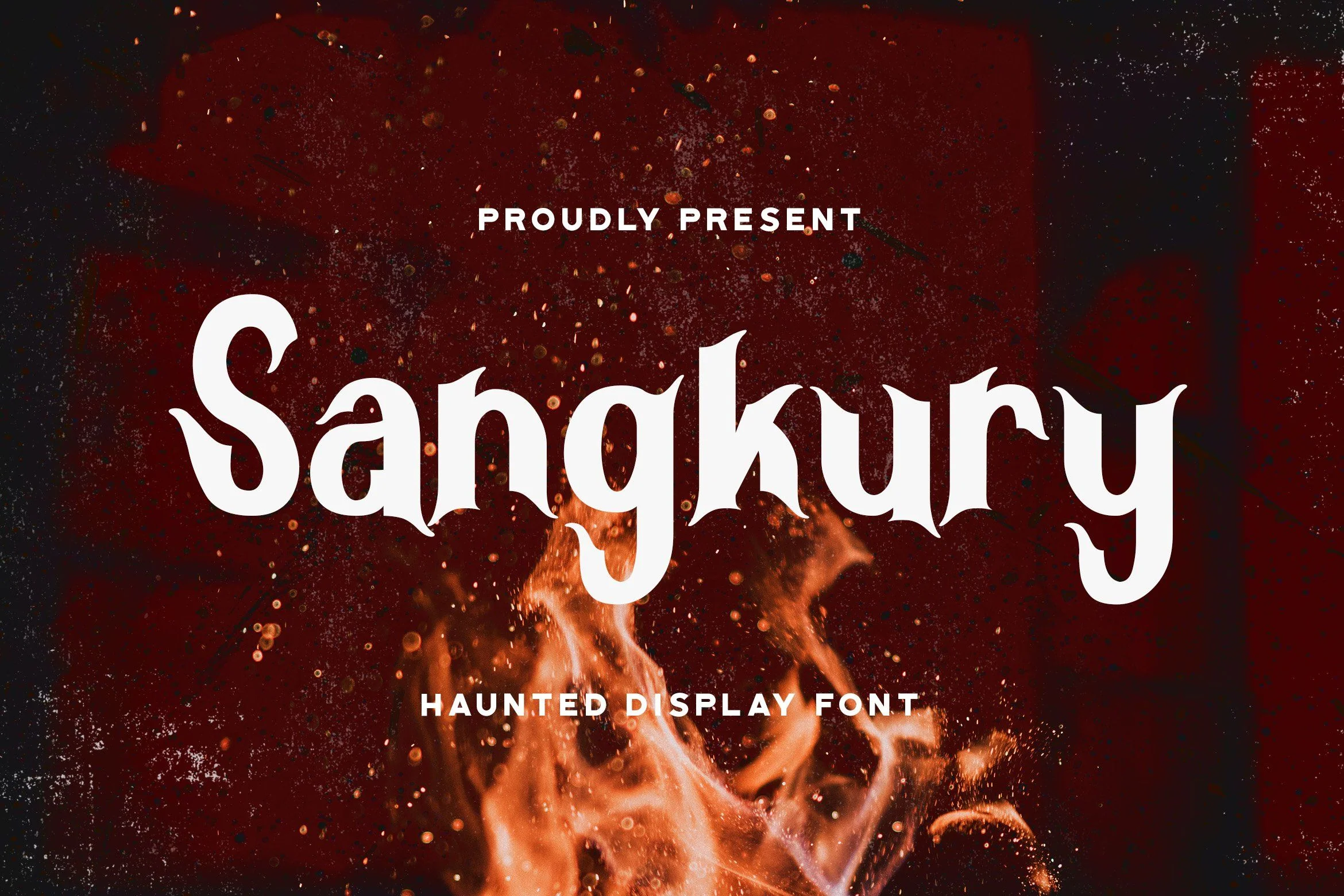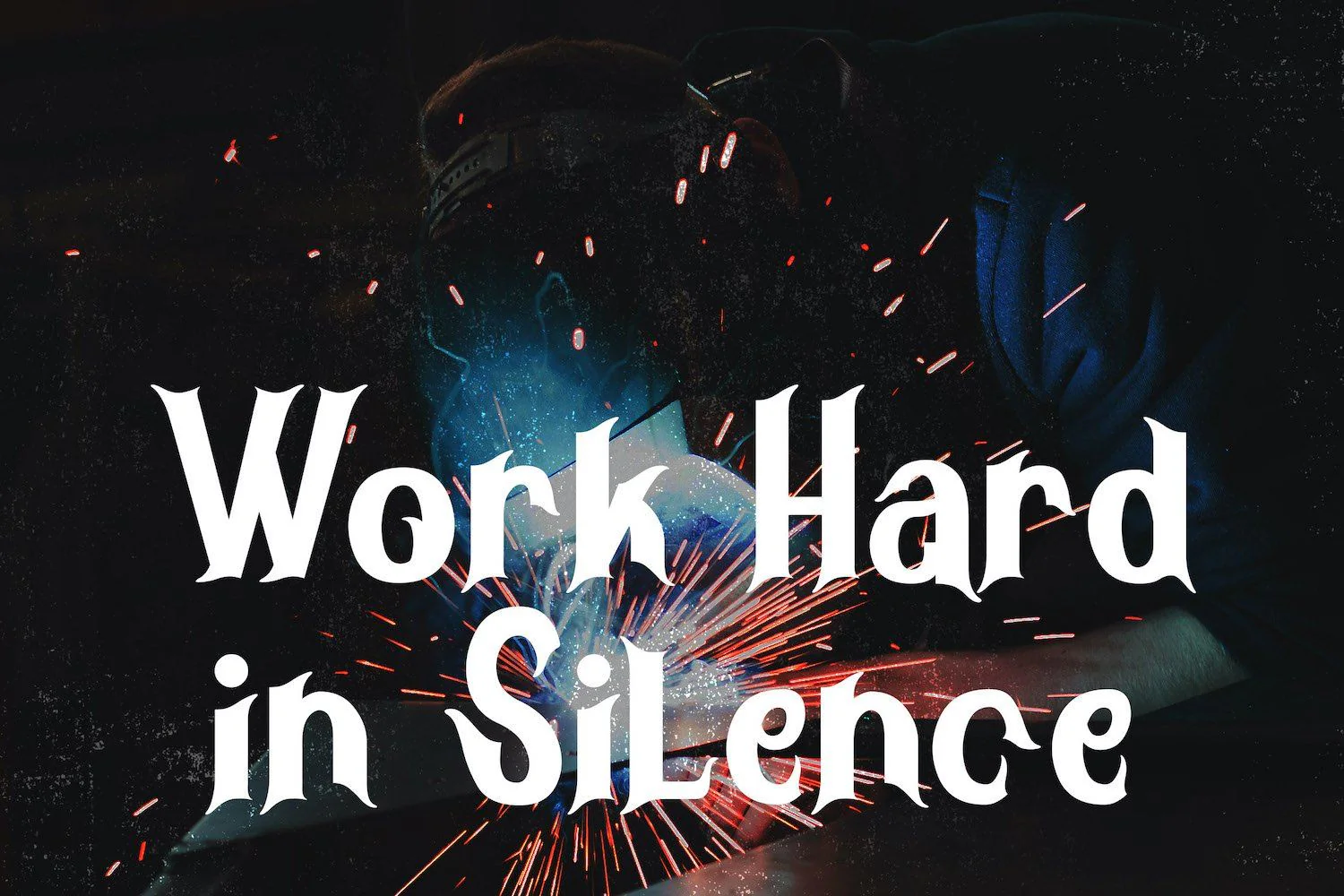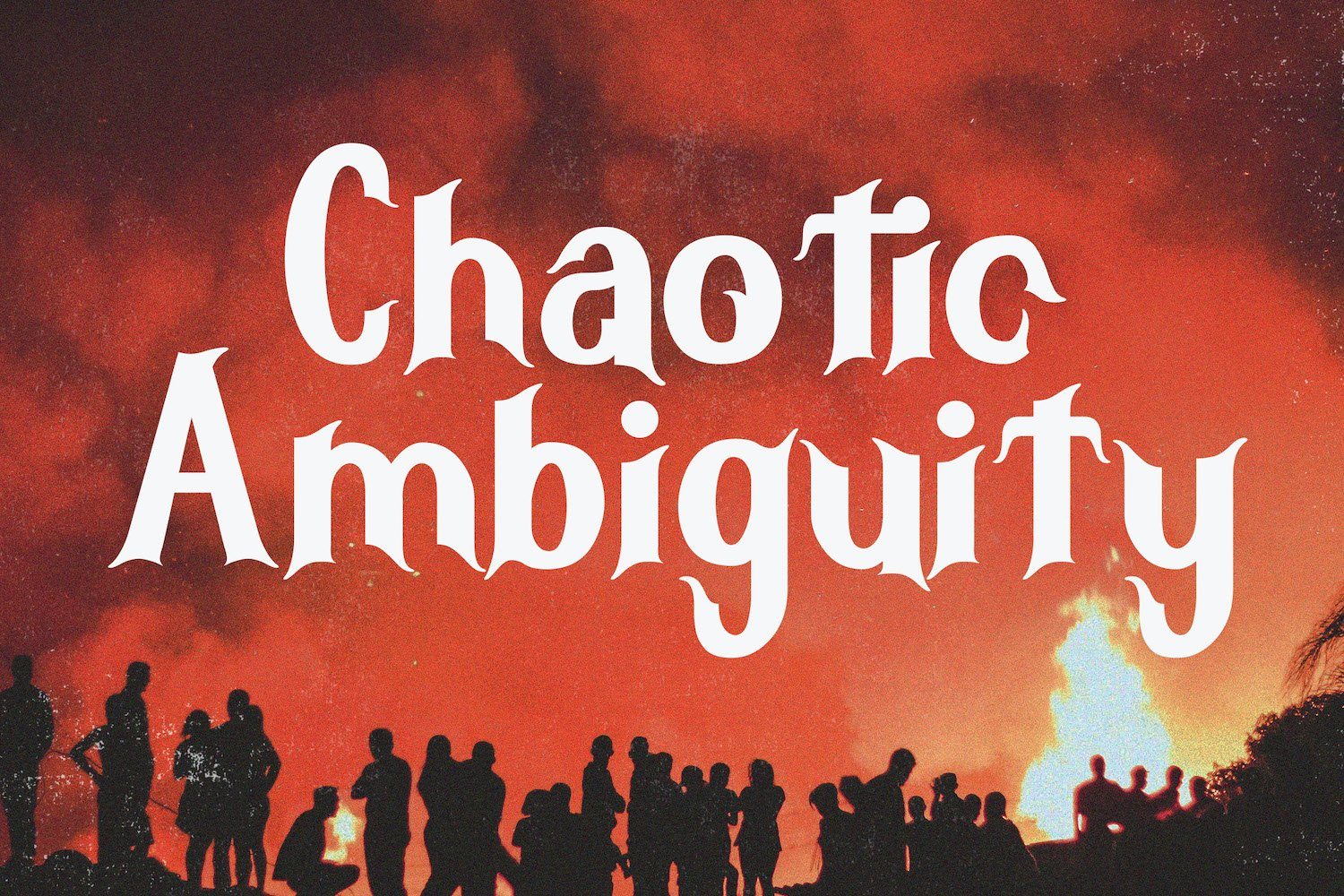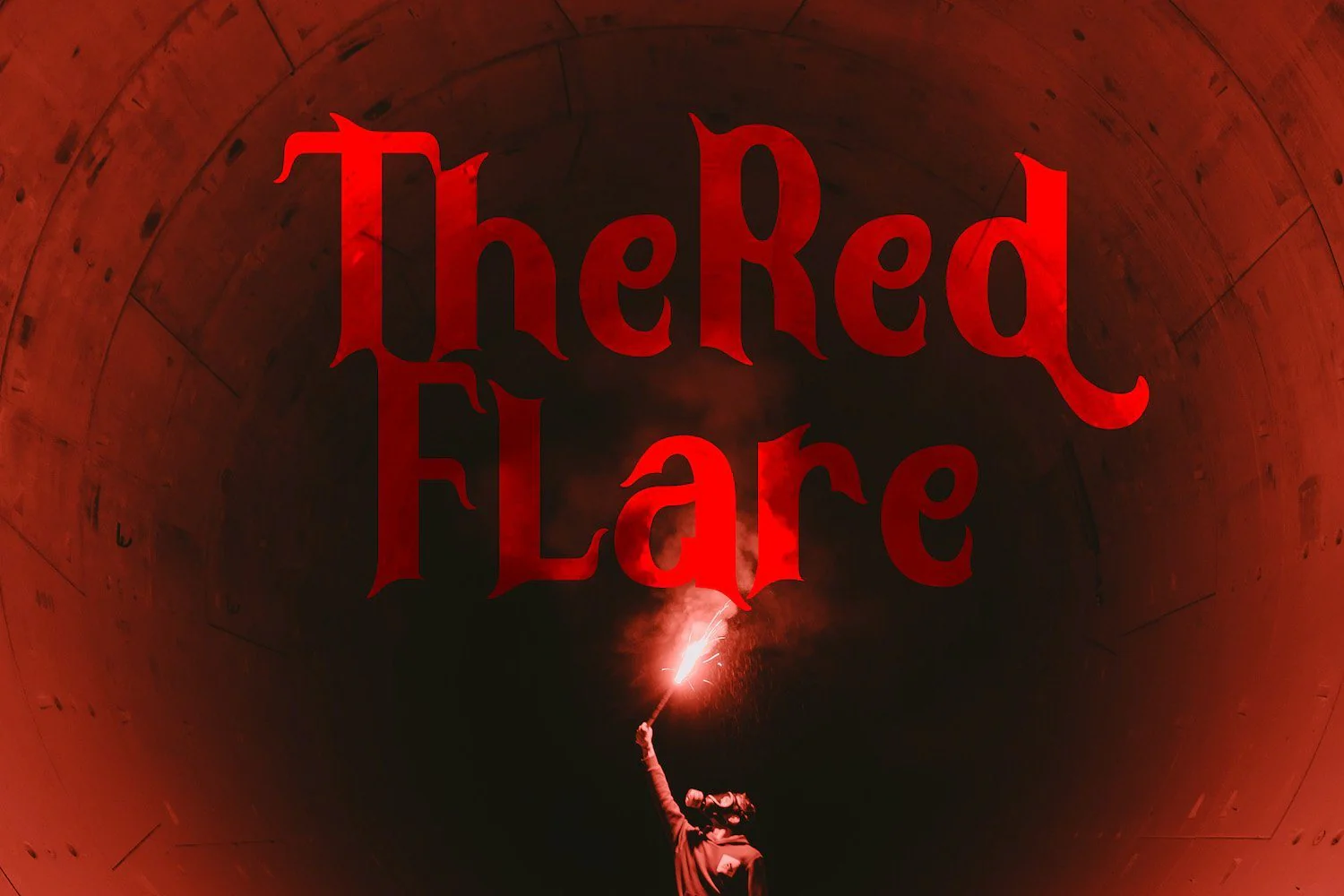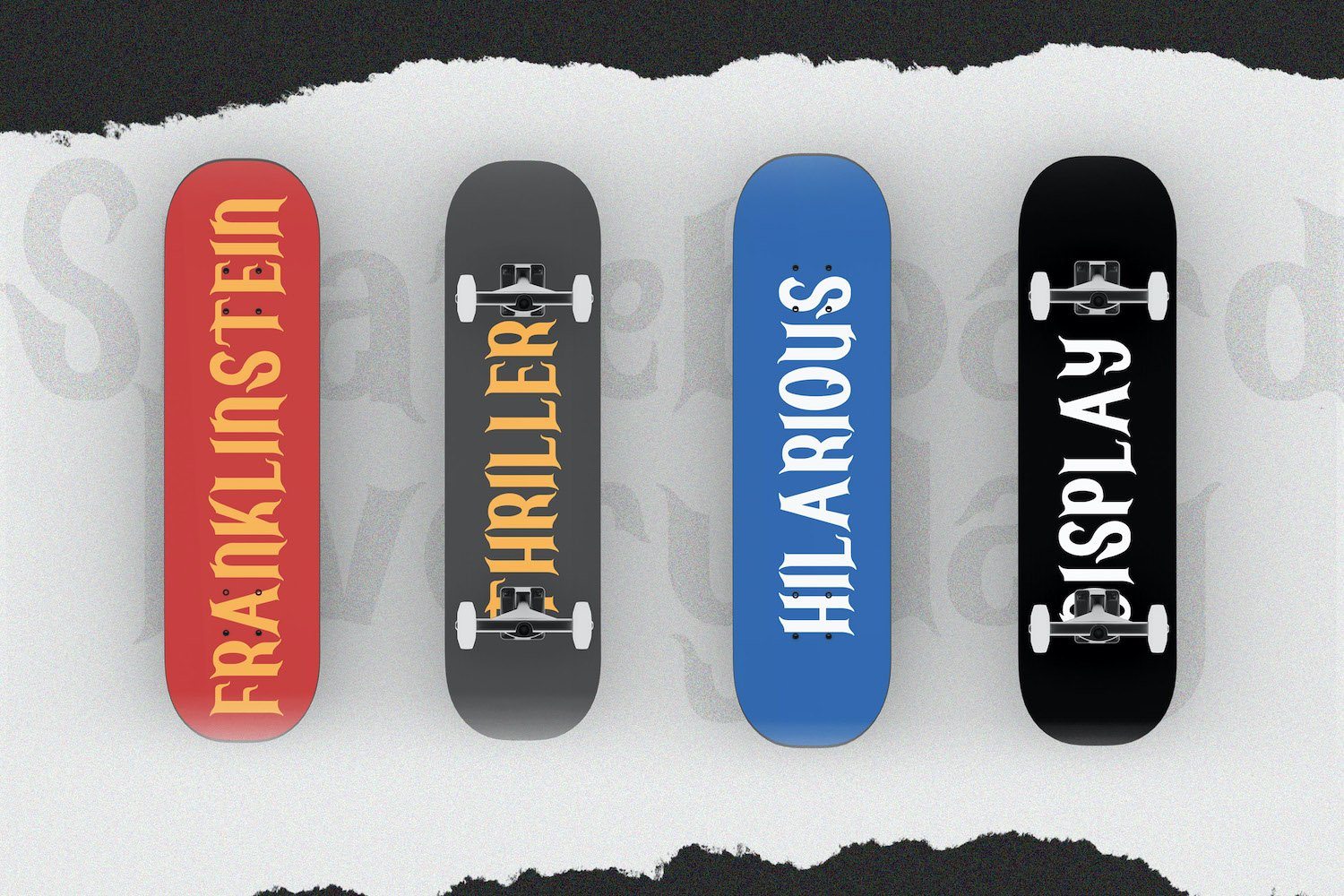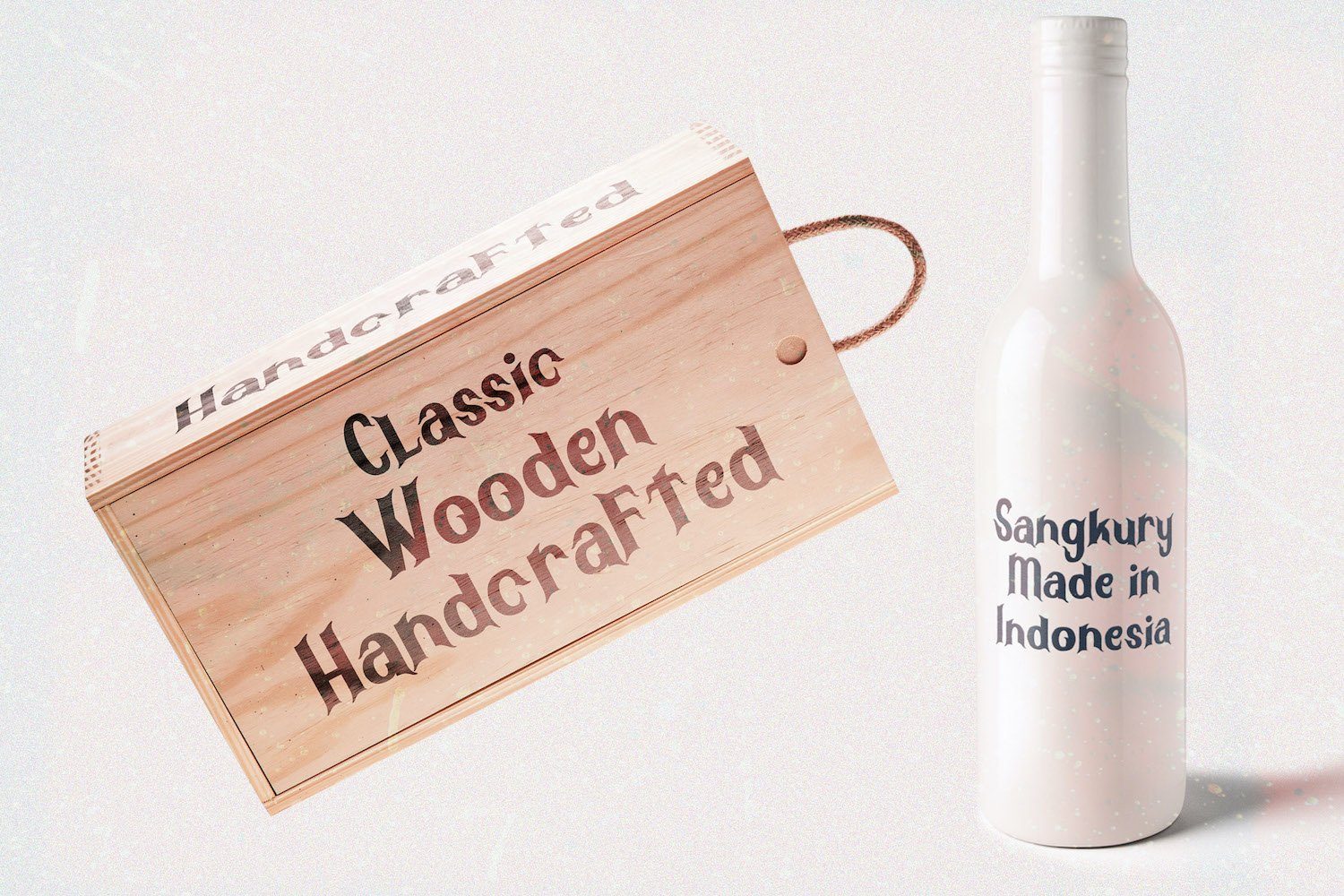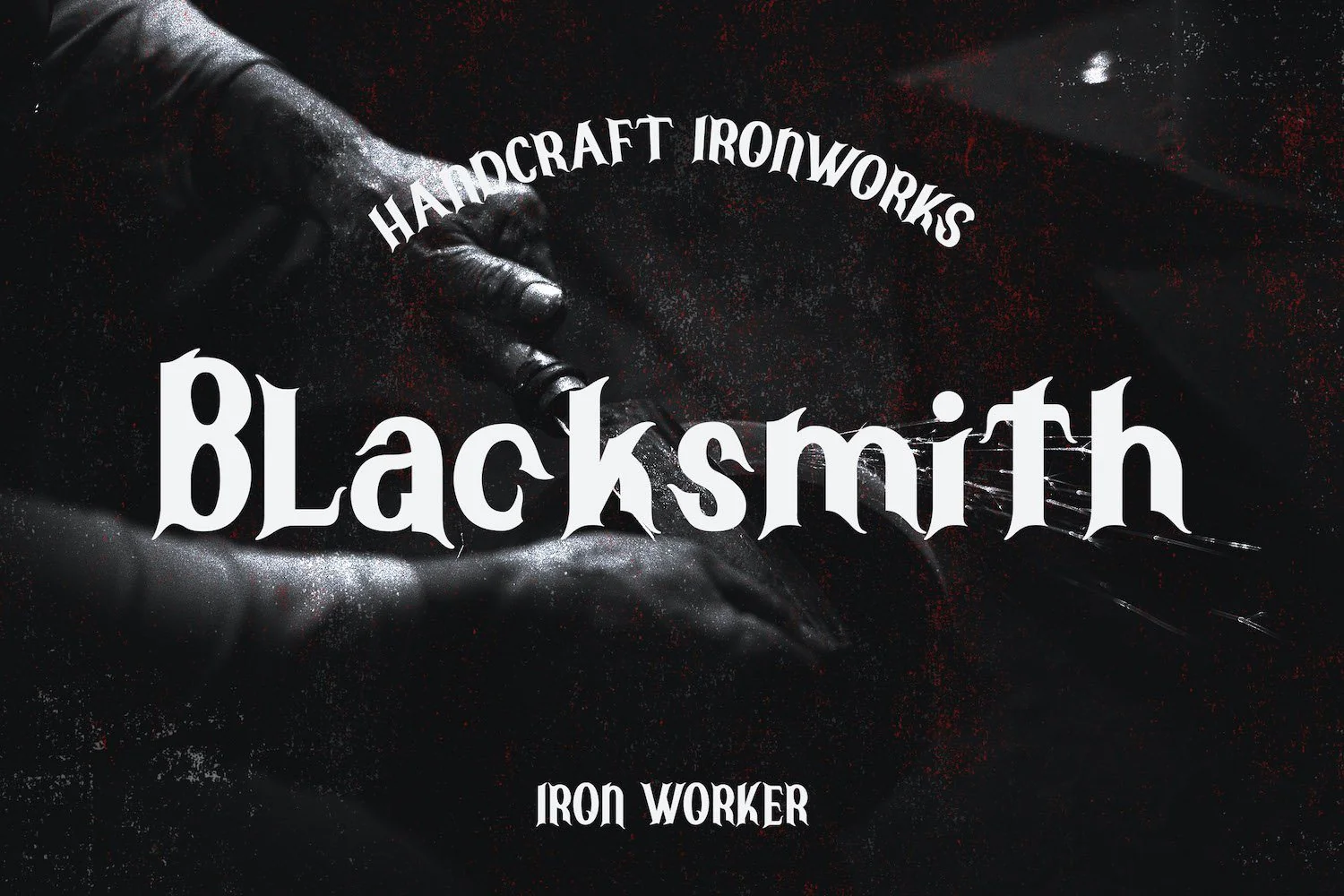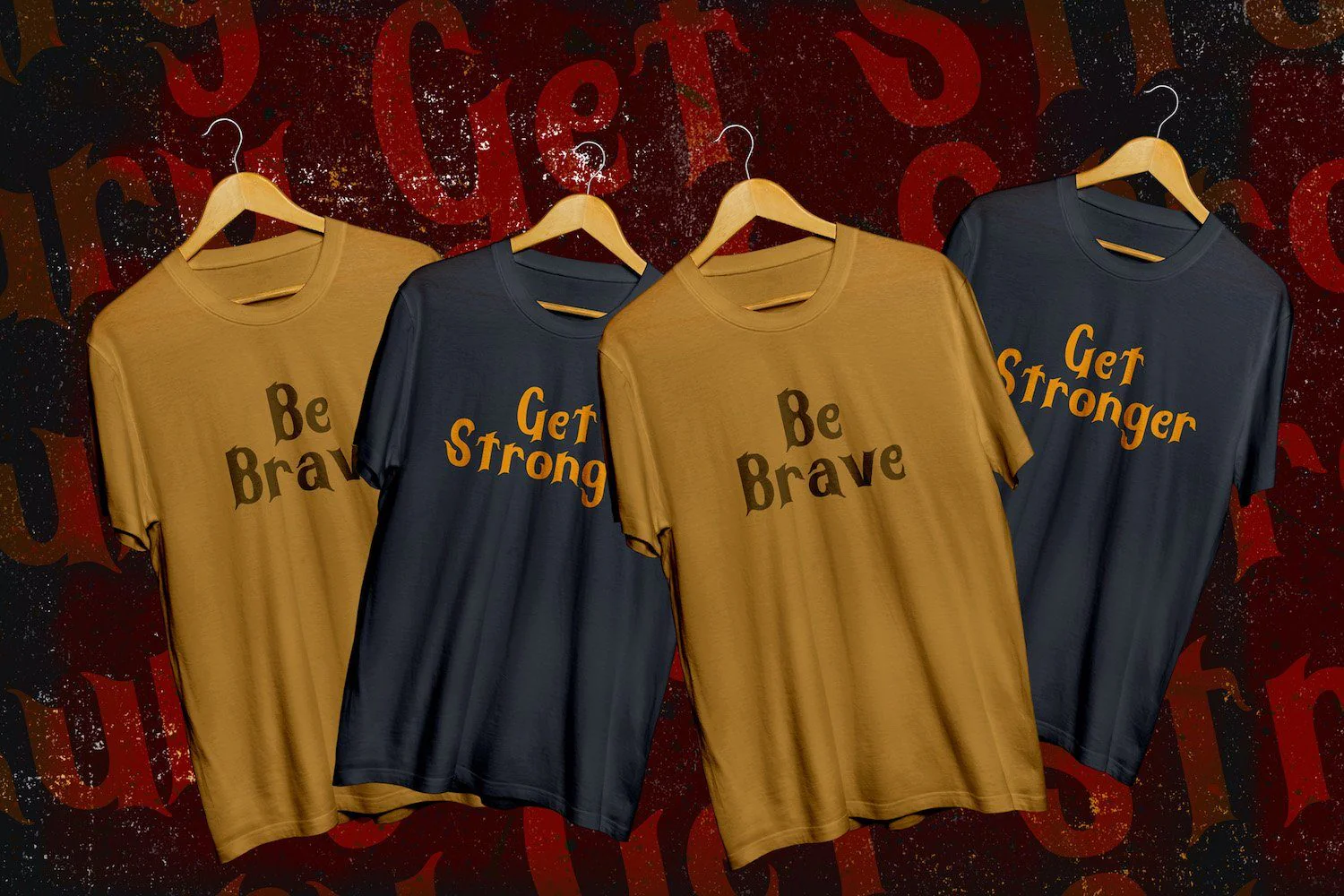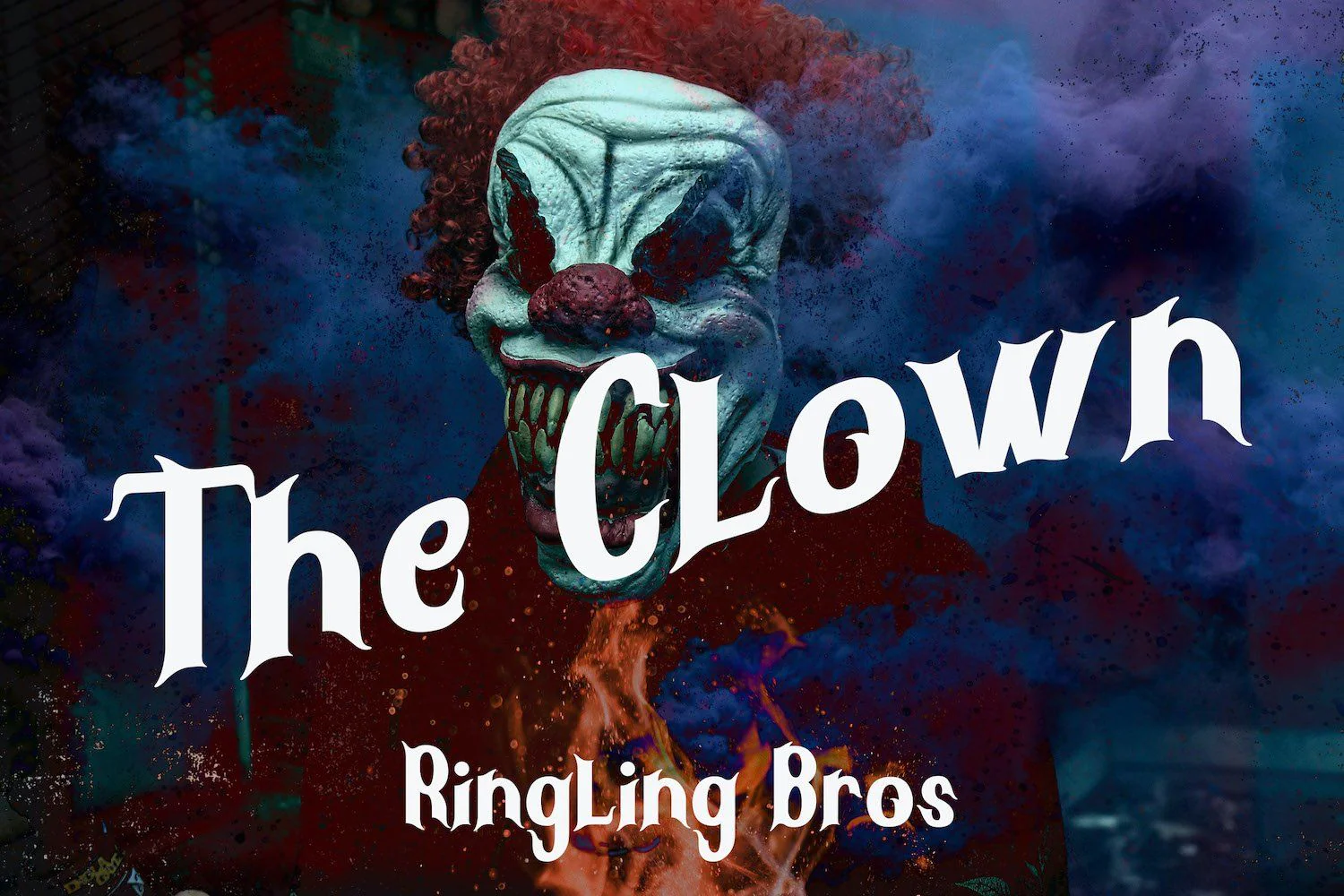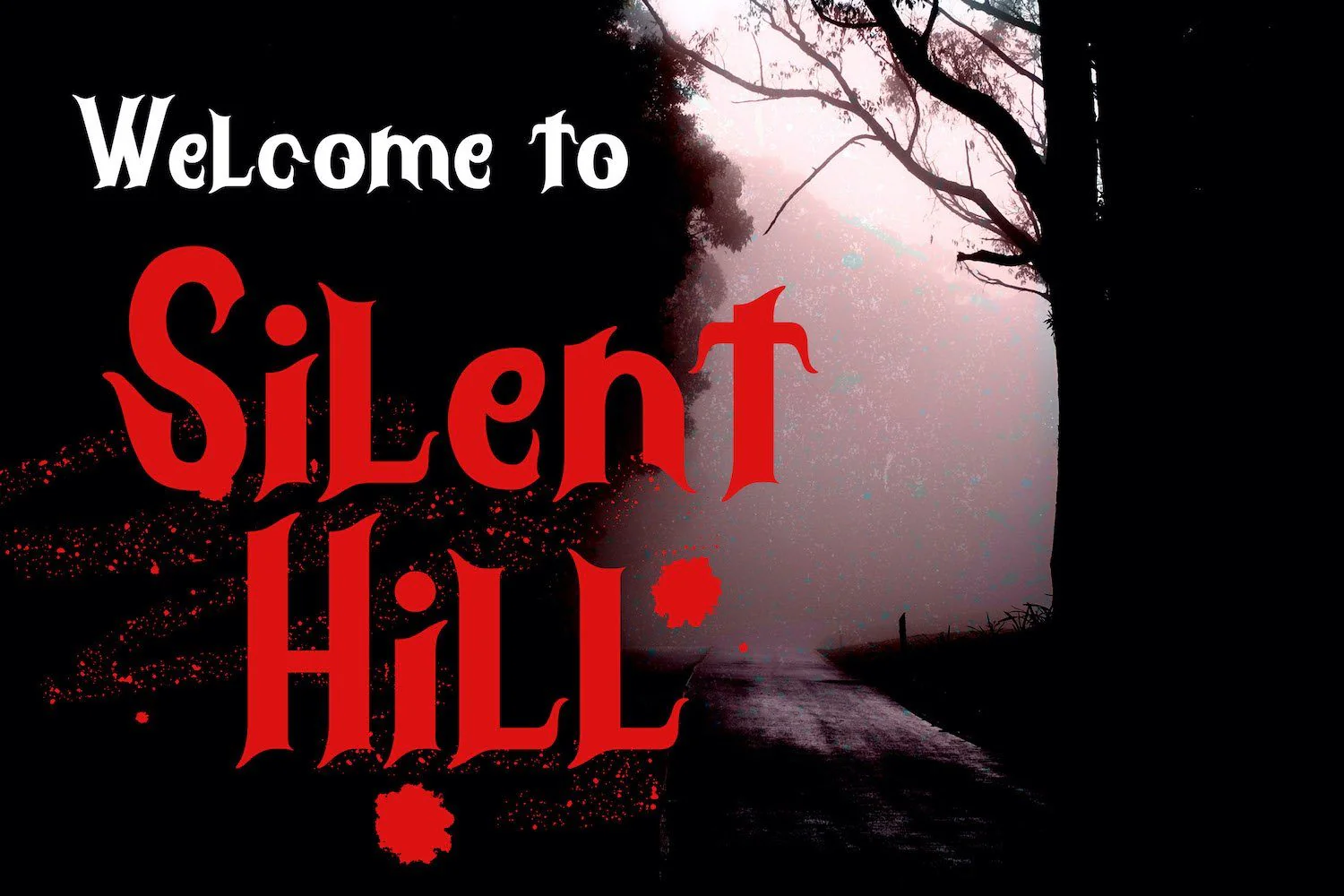
Sangkury - Haunted Display Font
Introducing Sangkury - Haunted Display Font
Sangkury is a unique display font. It features a spooky feel that makes it perfect for any project that requires a horror-themed. Use it for movies, flyers, posters, Halloween’s craftings and much more!
Introducing Sangkury - Haunted Display Font
Sangkury is a unique display font. It features a spooky feel that makes it perfect for any project that requires a horror-themed. Use it for movies, flyers, posters, Halloween’s craftings and much more!